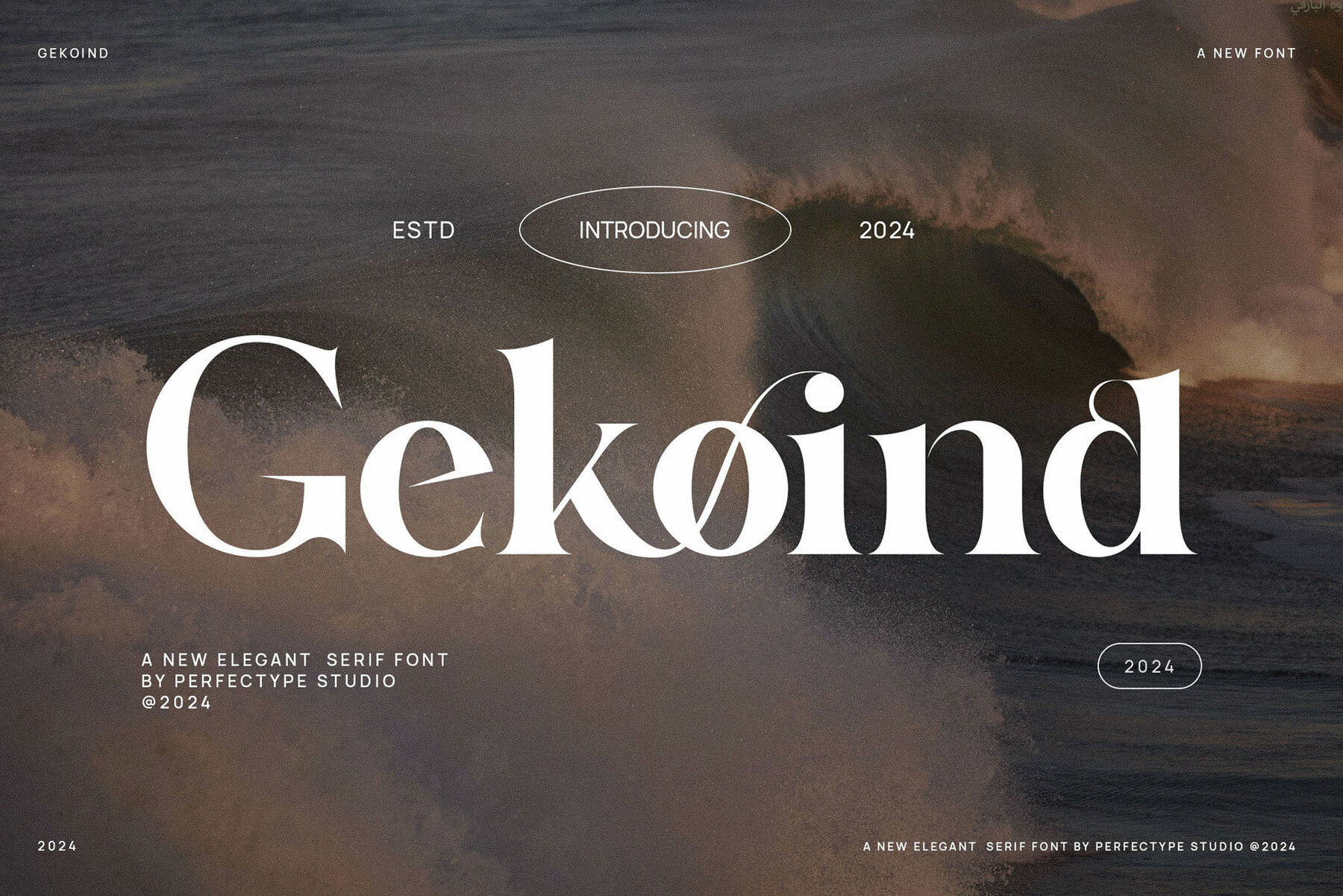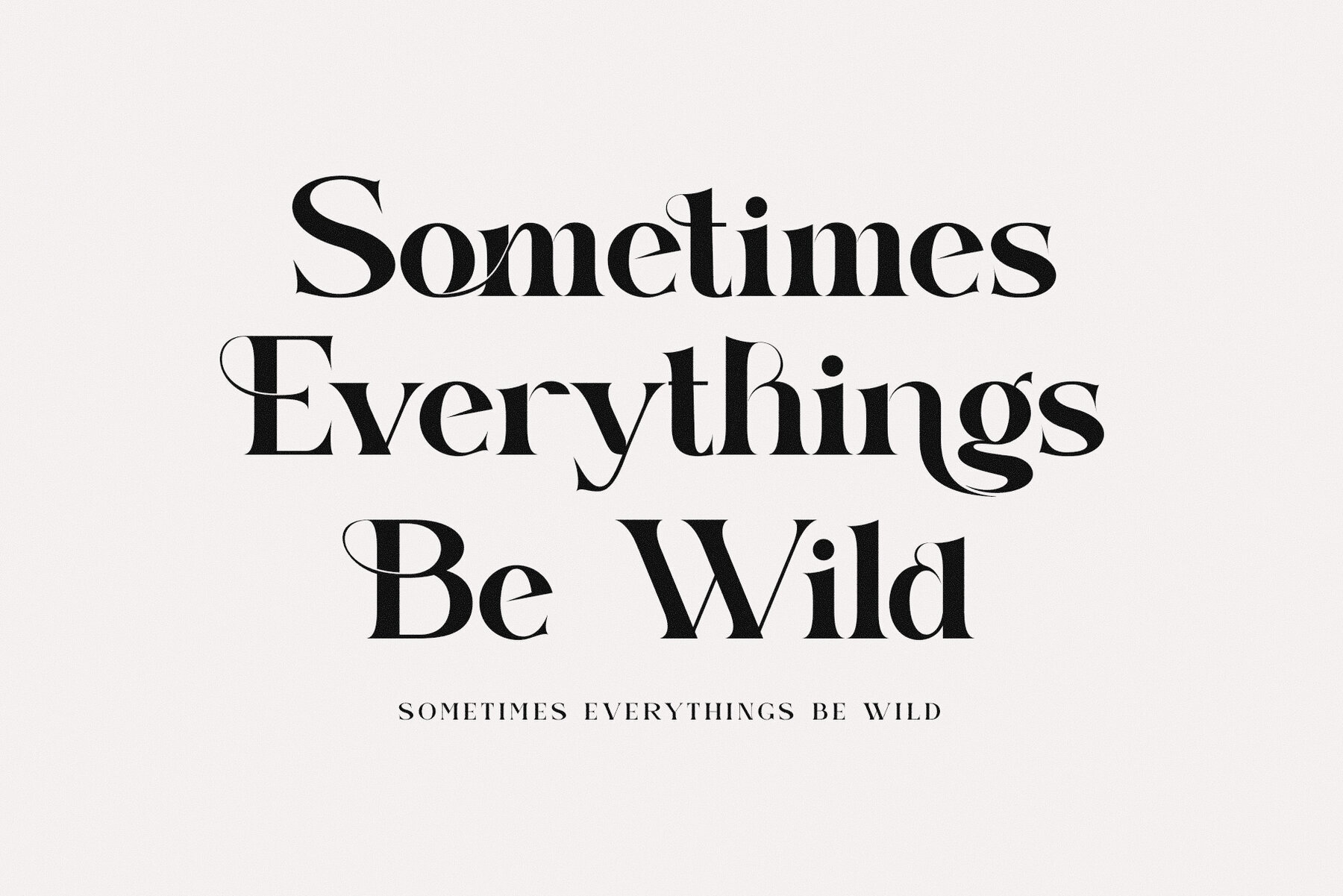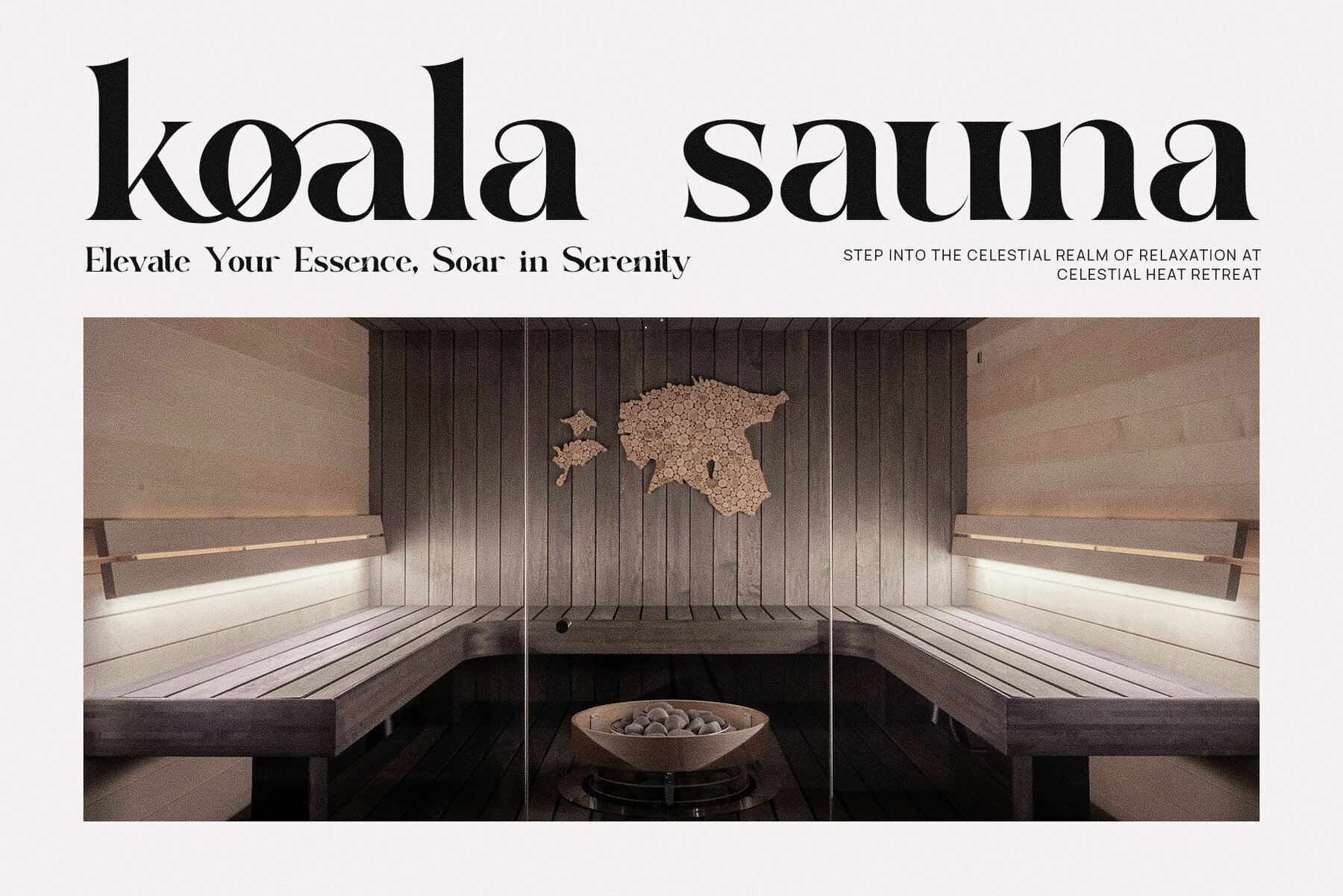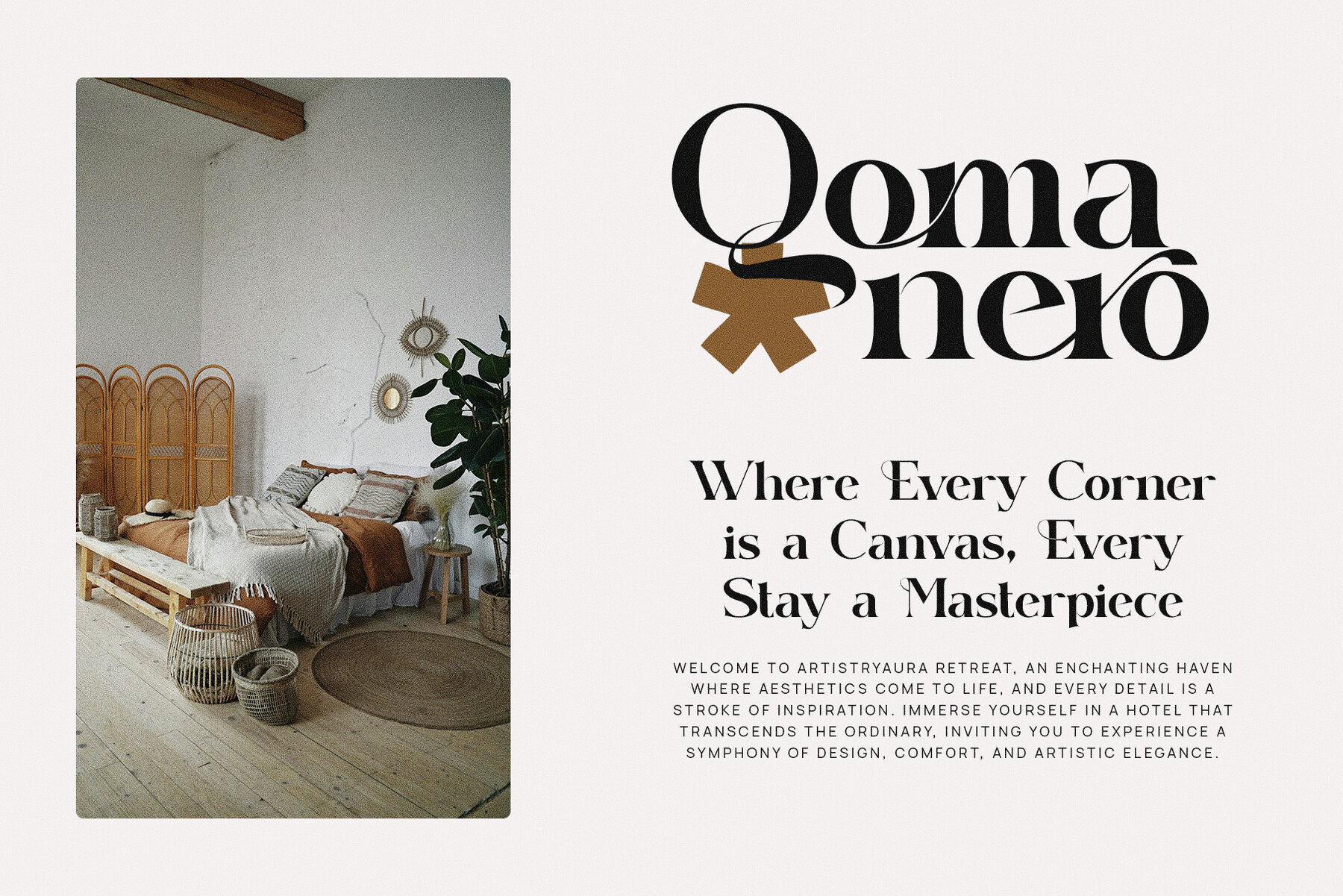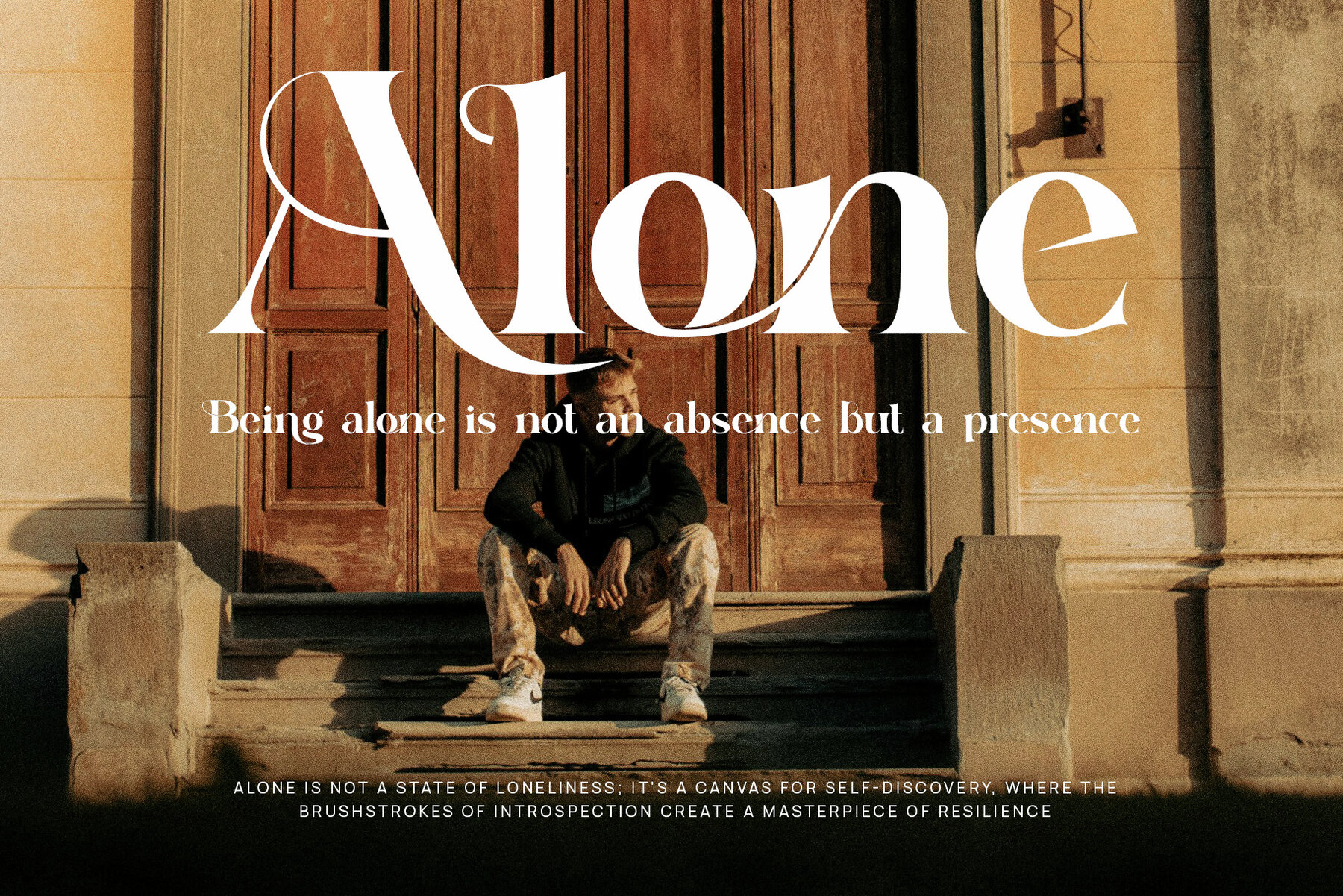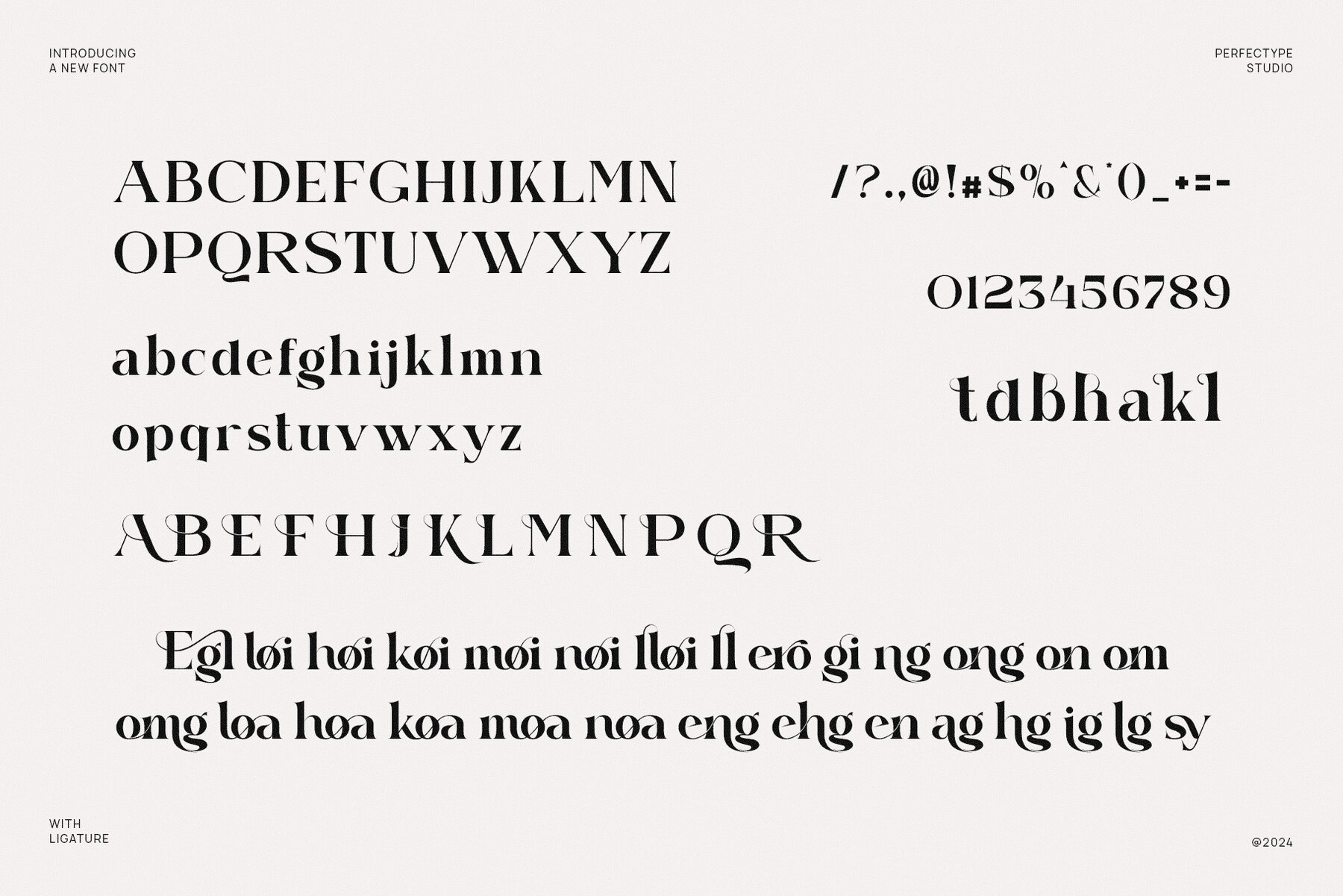
Gekoind Font
Gekoind
Gekoind Elegant Serif Font combines modern sophistication with classic charm, designed to enhance your creative projects with its refined and unique character. With beautifully crafted serifs and smooth curves, Gekoind exudes luxury and professionalism, making it ideal for high-end applications. The font features elegantly designed ligatures and alternate features, allowing designers to customize typography that stands out with style.
This versatile font is perfect for logos, branding, and premium product designs, contributing a polished, timeless feel to visual identities. Whether you're designing a modern website, a high-end magazine layout, or eye-catching advertisements, Gekoind adds sophistication and clarity. Its graceful structure ensures it looks stunning in both large headlines and smaller body text, making it suitable for a wide range of projects.
Gekoind is particularly well-suited for industries like fashion, food, boutique branding, lifestyle, and luxury products, where elegance and detail are essential. Its modern yet timeless appeal ensures it can enhance any creative project, in both print and digital media. With striking design and customizable features, Gekoind Elegant Serif Font is an essential tool for designers aiming to create sophisticated, memorable branding. This font is more than just a typeface—it's a vital asset for crafting elegant designs that make a lasting impression.